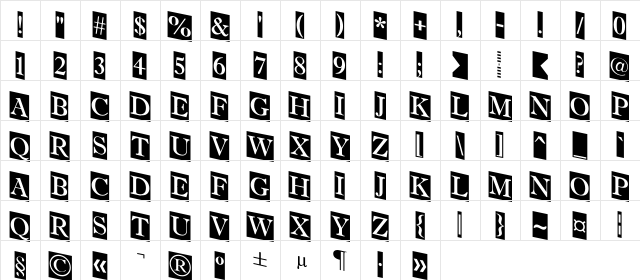
a_AntiqueTtlTrdCmDn Regular
Design Context for a_AntiqueTtlTrdCmDn Typeface
a_AntiqueTtlTrdCmDn wears its vintage influences proudly, with letterforms that recall mid-century signage, classic packaging, and nostalgia-driven design.